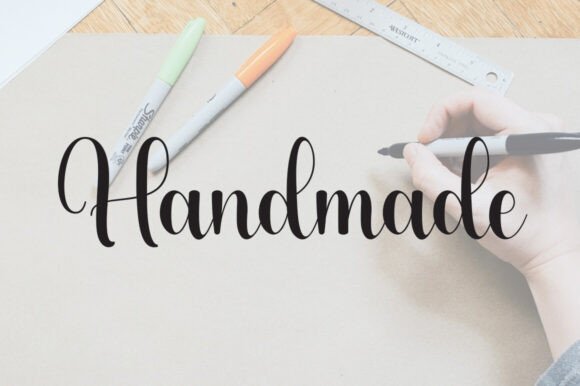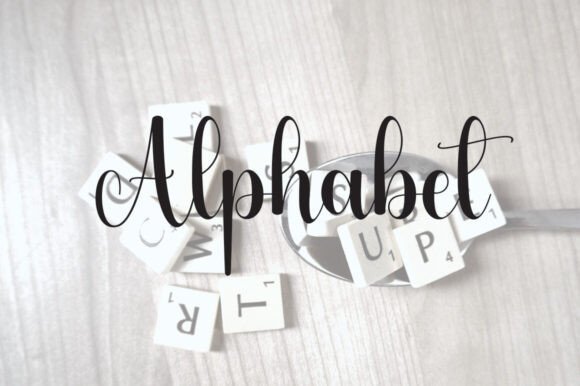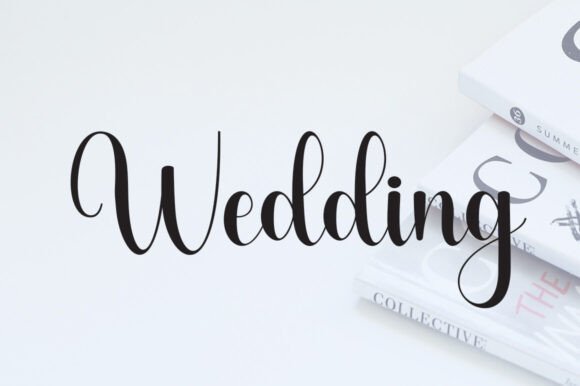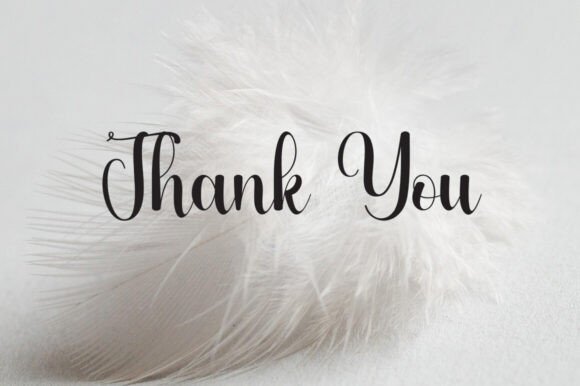
The Art of Handwritten Expression
Do you remember the joy of scribbling love notes to a secret admirer or writing heartfelt letters to a dear friend? The feeling of putting pen to paper and letting your emotions flow freely is a universal language that transcends words. It’s this same sense of intimacy and expression that the Handwritten Font embodies, bringing a touch of warmth and personality to any design concept.
As a designer, you understand the importance of finding the perfect font to convey your message. That’s where Handwritten Font comes in – a beautiful blend of elegance and charm that effortlessly adds a romantic touch to any project. Whether you’re creating a wedding invitation, a birthday card, or a marketing campaign, this font is sure to bring a smile to your audience’s faces and leave a lasting impression.
Key Features of Handwritten Font
- Font Family: A unique collection of handwritten fonts, available in various styles to suit different design needs.
- Character Set: Supports a wide range of characters, including Latin, Cyrillic, Greek, and many more, making it suitable for multilingual designs.
- Unique Characteristics: Each font in the collection features a distinct, handwritten style, with subtle imperfections and variations that add a touch of personality to designs.
- Font Pairing: Designed to be paired with other fonts, allowing users to create unique and visually appealing typography combinations that enhance their designs.
Designer Review: Handwritten Font
Overall, I have mixed feelings about the Handwritten Font. It’s a lovely addition to any design project that requires a personal touch, but it’s not without its limitations.
- Expressive and unique, this font is perfect for adding a personal touch to quotes, social media posts, or branding materials.
- It’s a great choice for designers who want to add a human element to their work, without being too overwhelming.
- The font is highly customizable, allowing designers to adjust the size, color, and style to fit their needs.
- Readability can be a concern, especially in smaller font sizes or when used for large blocks of text.
- The font may not be suitable for formal or professional projects, as it can come across as too casual or playful.
- It can be difficult to pair with other fonts, as it may clash with more modern or clean typography.
Overall, I think the Handwritten Font is a great choice for designers who want to add a personal touch to their work, but it’s not a one-size-fits-all solution. With some careful consideration and planning, it can be a beautiful addition to any design project.
Getting the Most Out of Handwritten Font
Use handwritten font to add a personal touch to your designs, such as:
- Signatures
- Labels
- Quotes
Use handwritten font in various design projects, such as:
- Invitations and event graphics
- Art and illustration
- Personal stationery and planners
Alternatives to Handwritten Font for Designers
1. Script Font
Script Font is a style of typography that mimics handwriting, but with more fluid and flowing connections between letters. It is ideal for use in invitations, wedding stationery, and other formal documents where a personal touch is required.
Comparison to Handwritten Font: Script Font is more elegant and refined, making it suitable for formal occasions, whereas Handwritten Font is more casual and imperfect, making it perfect for everyday use.
2. Brush Script Font
Brush Script Font is a digital font that simulates the look of handwriting with a brush or pen. It is great for use in headings, titles, and short paragraphs where a bold and eye-catching effect is desired.
Comparison to Handwritten Font: Brush Script Font is more stylized and dramatic, making it perfect for creating a bold and attention-grabbing effect, whereas Handwritten Font is more subtle and natural.